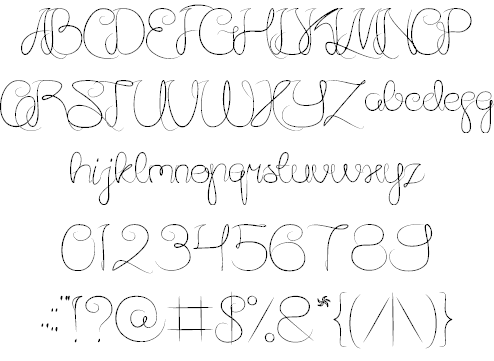
Free Amazing Day Everyday Font
Featuring the dazzling free amazing day everyday font. Font Space has created this amazing and beautiful free typeface. This is absolutely beautiful font so you can easily make world-class designs.